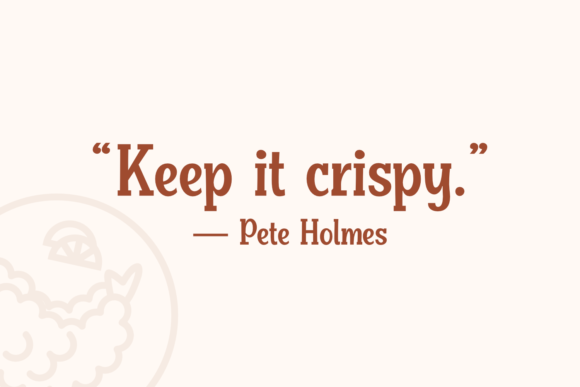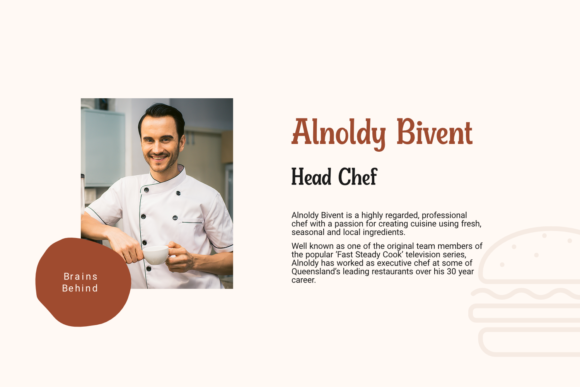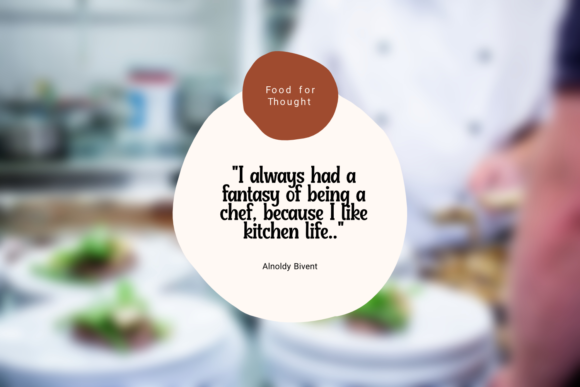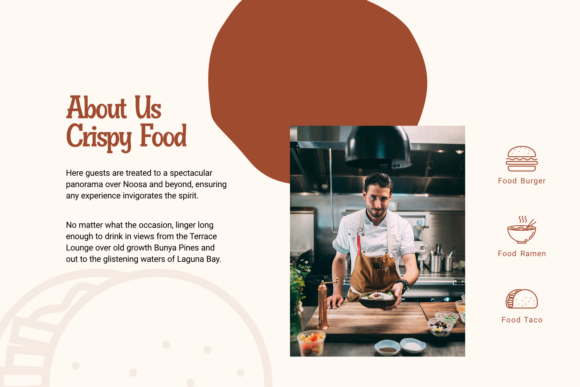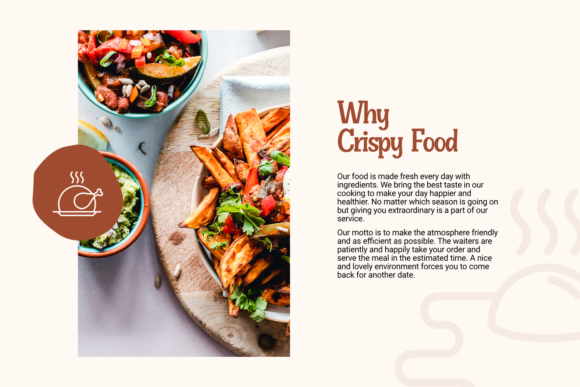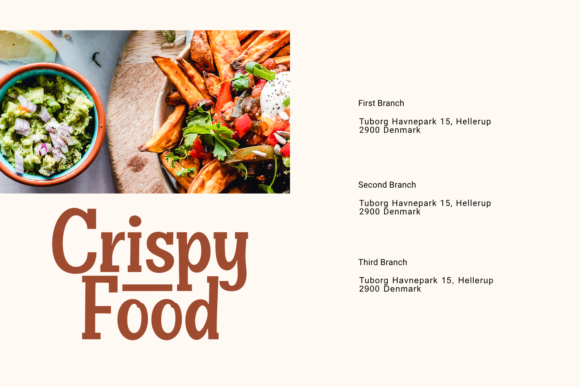
Crispy Food Font: A Cool, Vintage-Styled Display Font for Crafty Ideas
Are you a designer or crafter looking for a unique and adaptable font to elevate your creative projects? Look no further than the Crispy Food font, a cool, vintage-styled display font that’s perfect for a wide range of crafty ideas. In this article, we’ll dive into the features and benefits of Crispy Food, and explore how it can add a touch of originality and style to your designs.
What is Crispy Food Font?
Crispy Food is a display font that boasts a distinctive, vintage-inspired look that’s sure to turn heads. With its bold, crisp lines and classic feel, this font is ideal for use in a variety of design projects, from letterheads and titles to stationery and more. Whether you’re a professional designer or a DIY crafter, Crispy Food is a versatile font that can help you add a touch of personality and flair to your work.
Key Features of Crispy Food Font
So, what makes Crispy Food font so special? Here are just a few of its key features:
- Vintage-inspired design: Crispy Food’s classic look is reminiscent of traditional printing techniques, making it perfect for designs that require a nostalgic or retro feel.
- Adaptable: This font is highly versatile and can be used in a wide range of design projects, from formal to informal.
- Bold and crisp lines: Crispy Food’s bold, crisp lines make it easy to read and ensure that your designs stand out.
- Original look: With its unique blend of classic and modern elements, Crispy Food is sure to add a touch of originality to your designs.
How to Use Crispy Food Font in Your Designs
So, how can you use Crispy Food font in your designs? Here are a few ideas to get you started:
- Letterheads and titles: Use Crispy Food to add a touch of elegance and sophistication to your letterheads and titles.
- Stationery: Add a personal touch to your stationery with Crispy Food’s classic, vintage-inspired design.
- Signage: Crispy Food’s bold, crisp lines make it perfect for use in signage, from menus to billboards.
- Branding: Use Crispy Food to create a unique and memorable brand identity that sets you apart from the competition.
Benefits of Using Crispy Food Font
So, why should you choose Crispy Food font for your designs? Here are just a few of the benefits of using this versatile font:
- Unique look: Crispy Food’s original design ensures that your designs stand out from the crowd.
- Flexibility: This font is highly adaptable and can be used in a wide range of design projects.
- Elegance: Crispy Food’s classic, vintage-inspired design adds a touch of elegance and sophistication to any design.
- Easy to read: With its bold, crisp lines, Crispy Food is easy to read, even at small sizes.
In conclusion, Crispy Food font is a cool, vintage-styled display font that’s perfect for designers and crafters looking to add a touch of originality and style to their designs. With its adaptable design, bold and crisp lines, and classic feel, Crispy Food is a versatile font that can be used in a wide range of crafty ideas, from letterheads and titles to stationery and more. So why not give Crispy Food a try and see how it can elevate your designs?